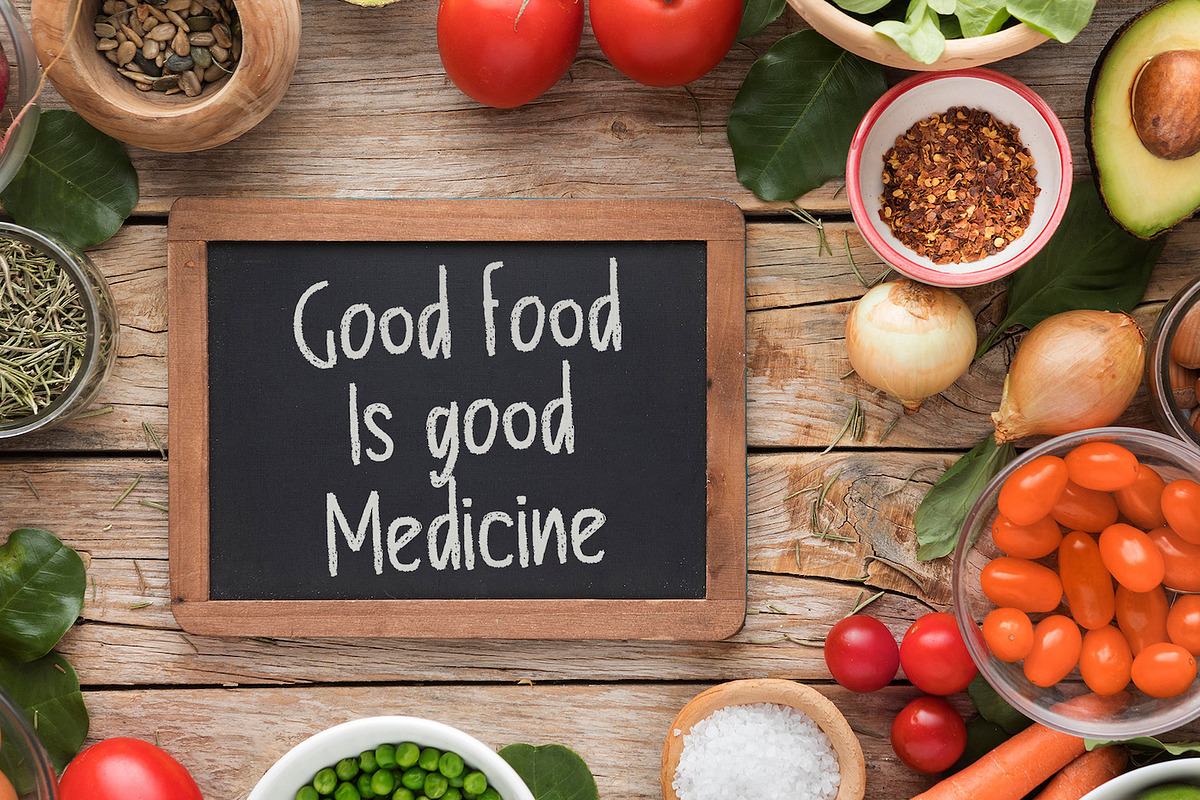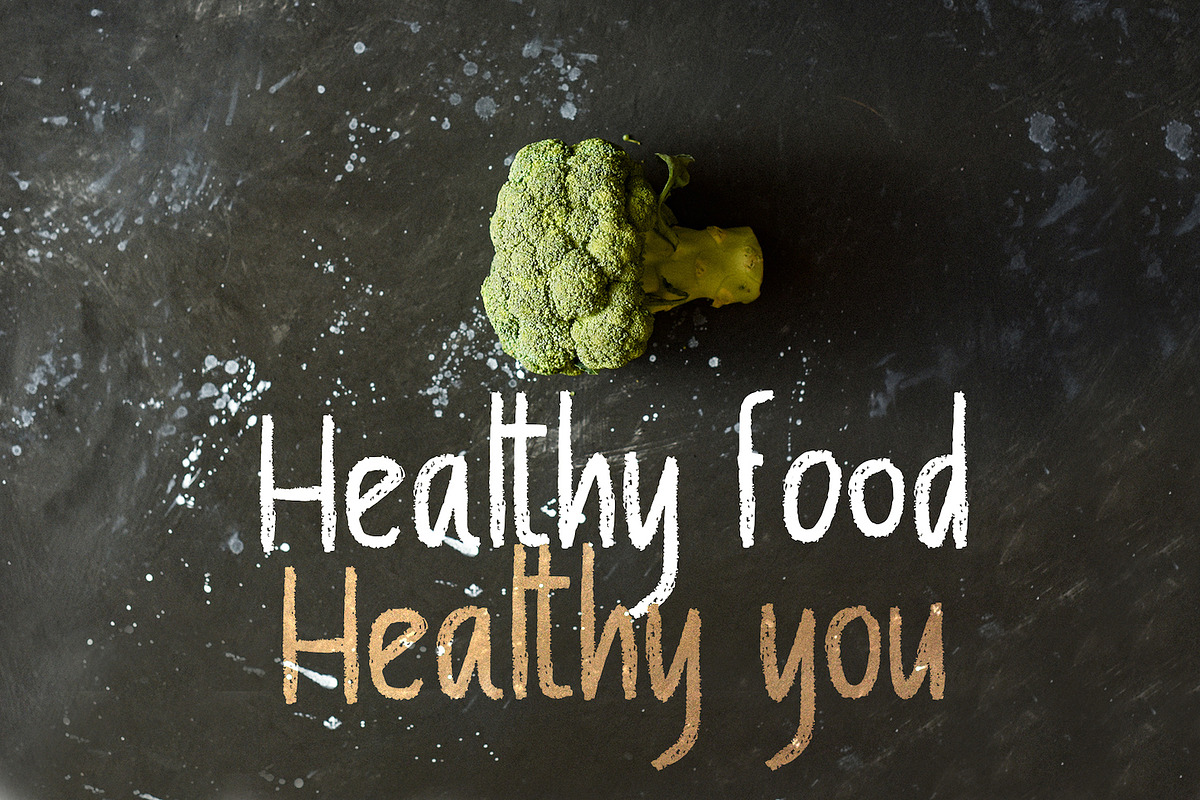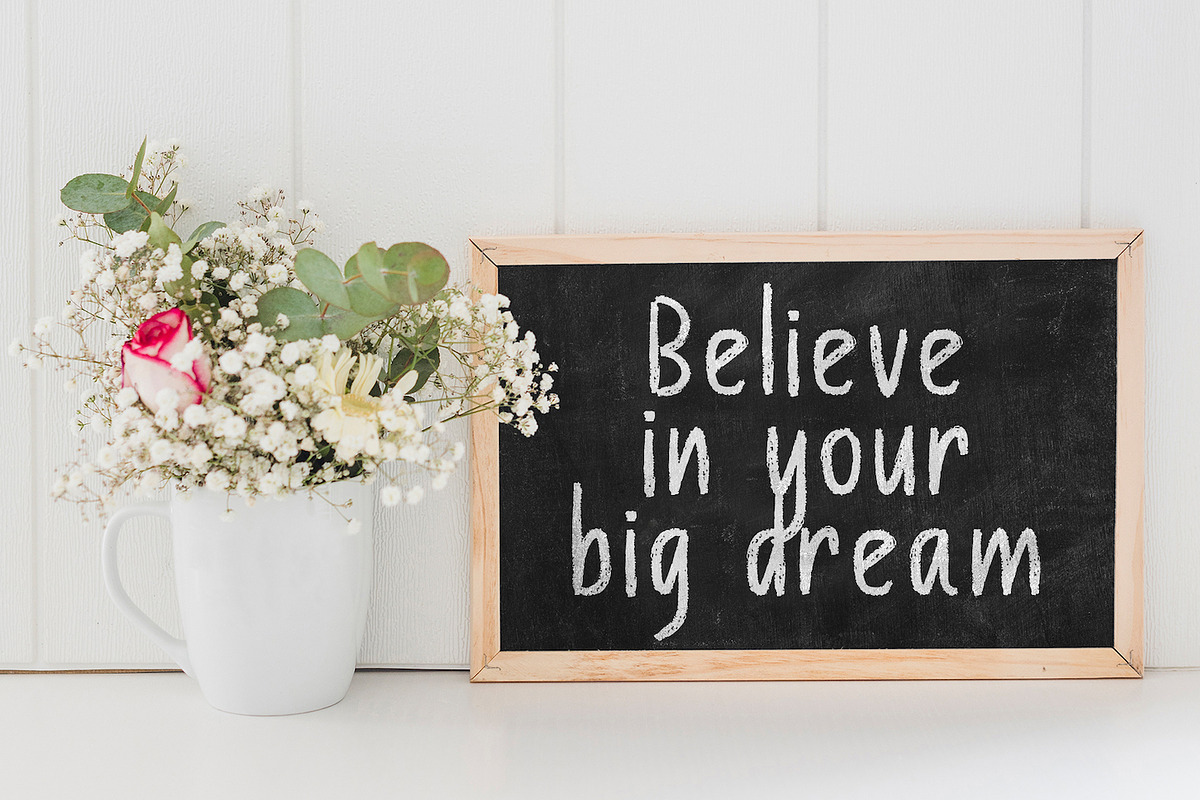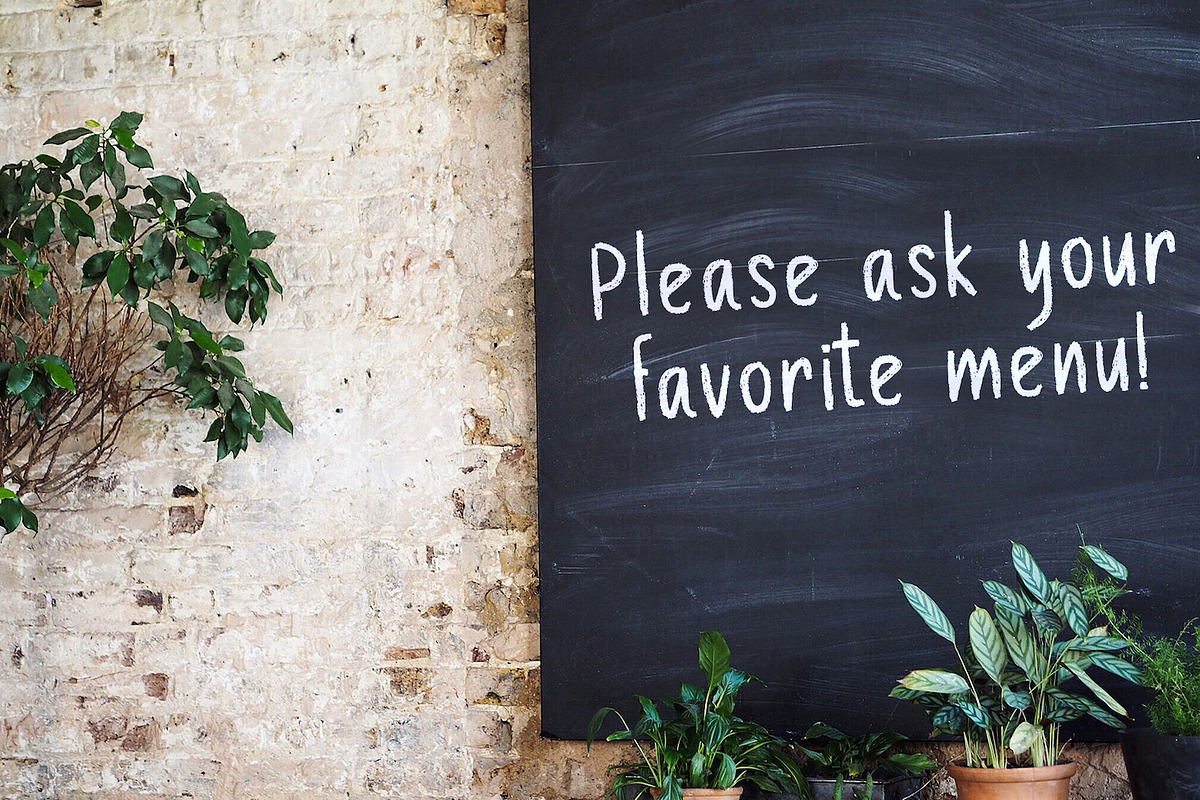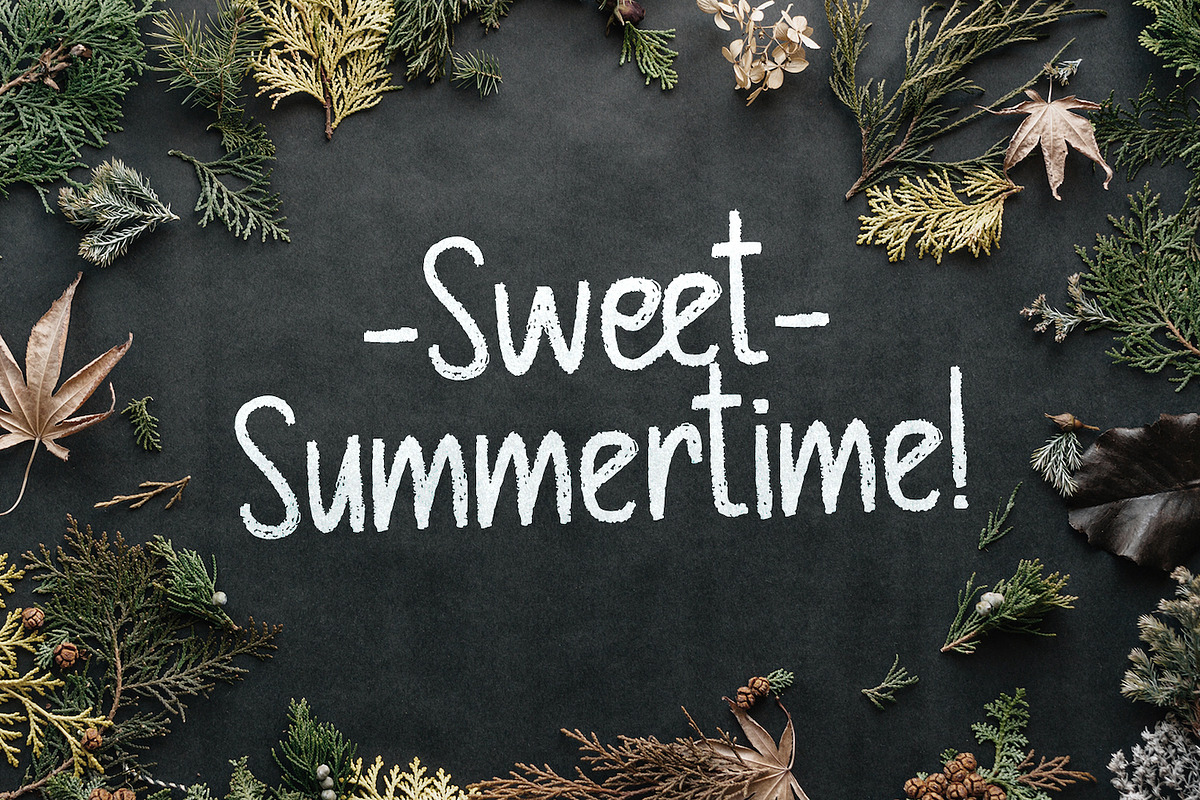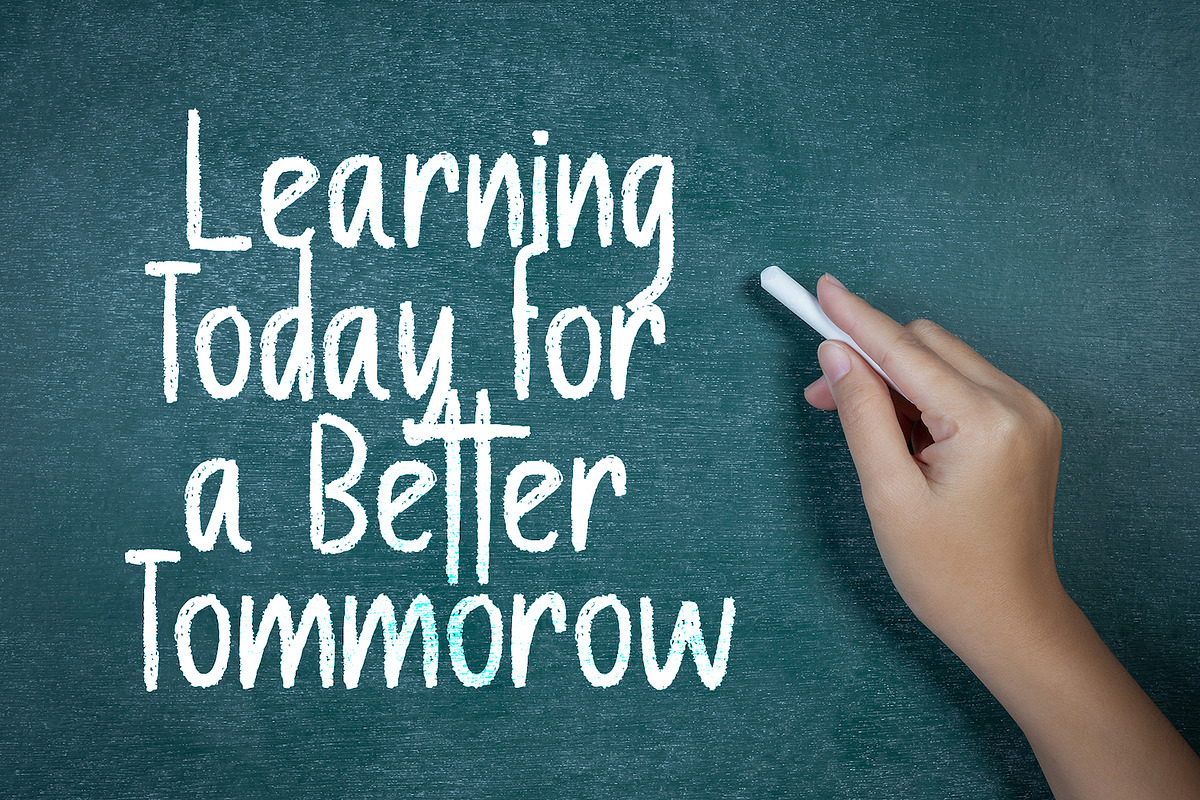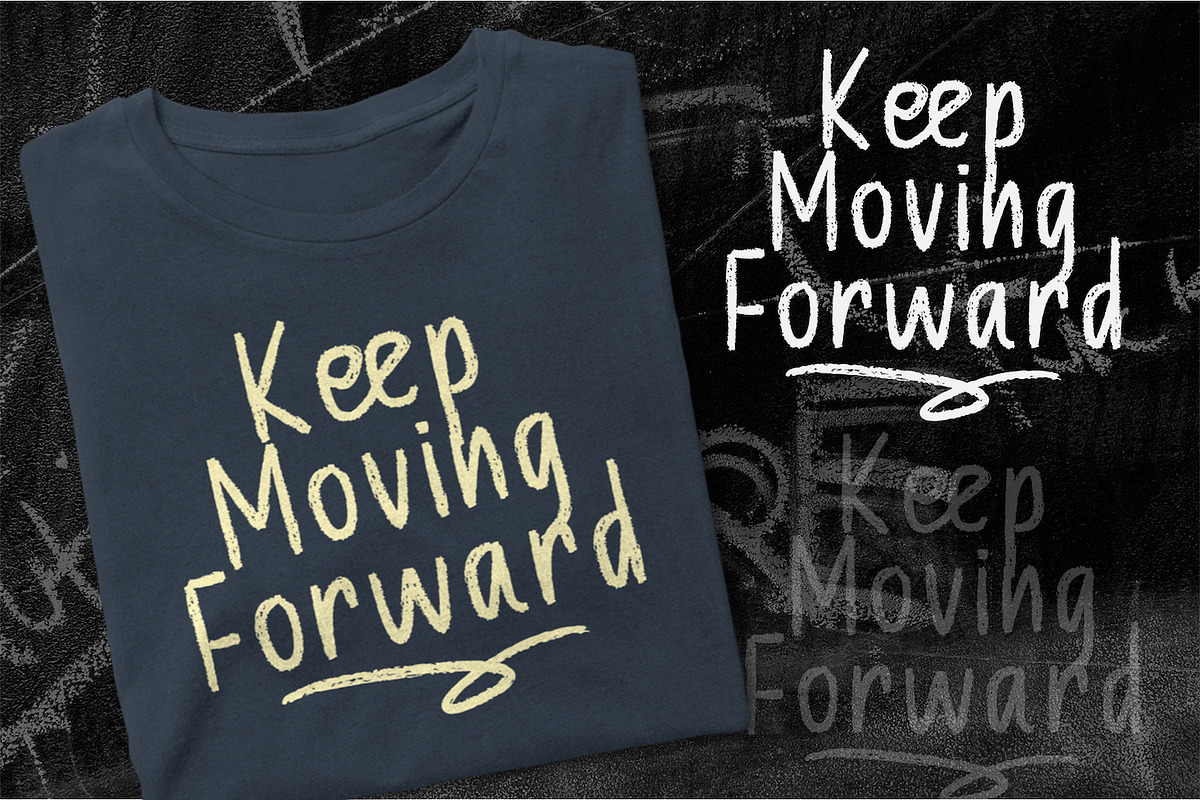
Chalk Board - A Handmade Chalk Font
Introducing Chalk Board - A Handmade Chalk Font
Chalk Board is a handmade textured brush font, inspired by the chalk. This unique script will add a serious and sincere feel to any design idea!
Why Chalk Board - A Handmade Chalk Font is worth a look
Chalk Board - A Handmade Chalk Font by StringLabs fits naturally into Branding, posters, packaging, typography.